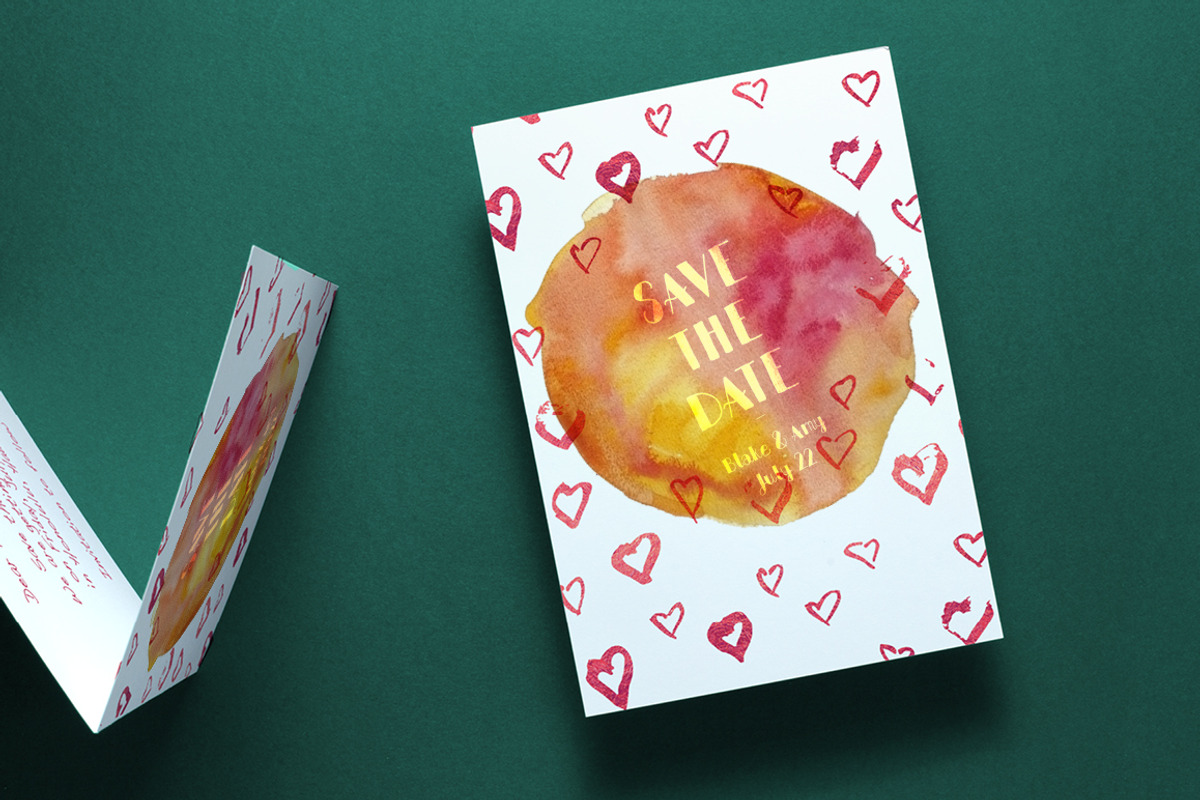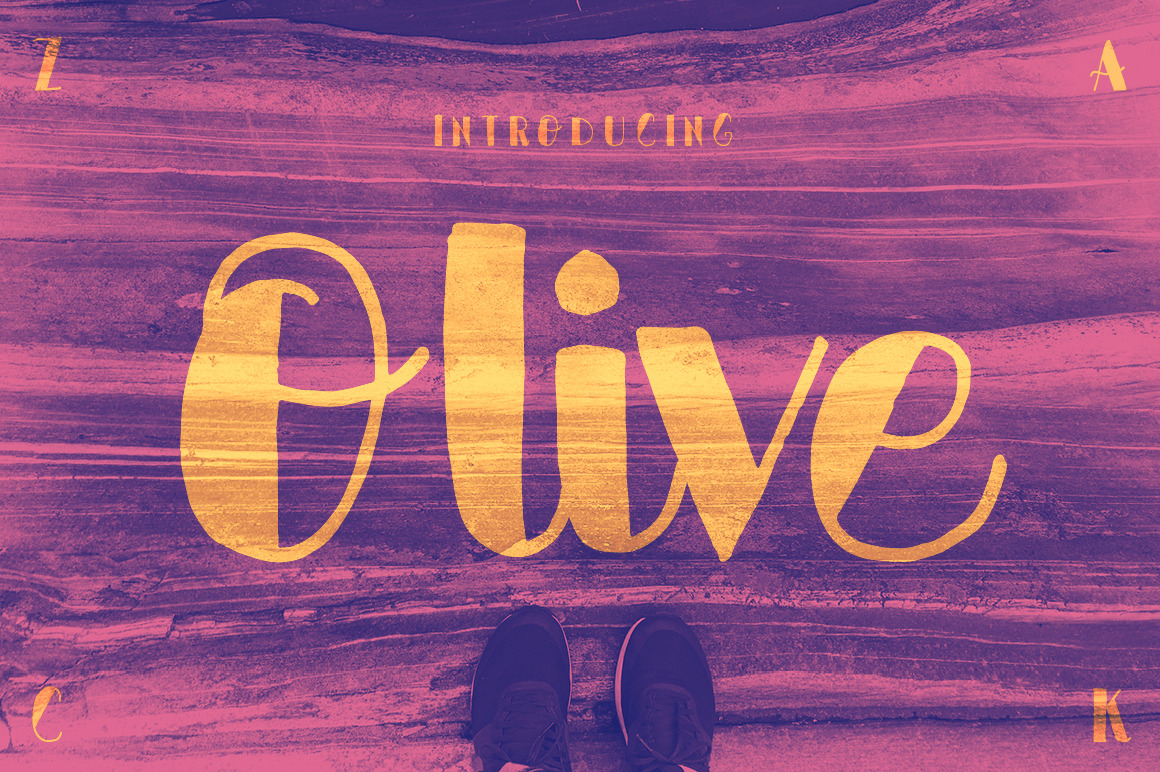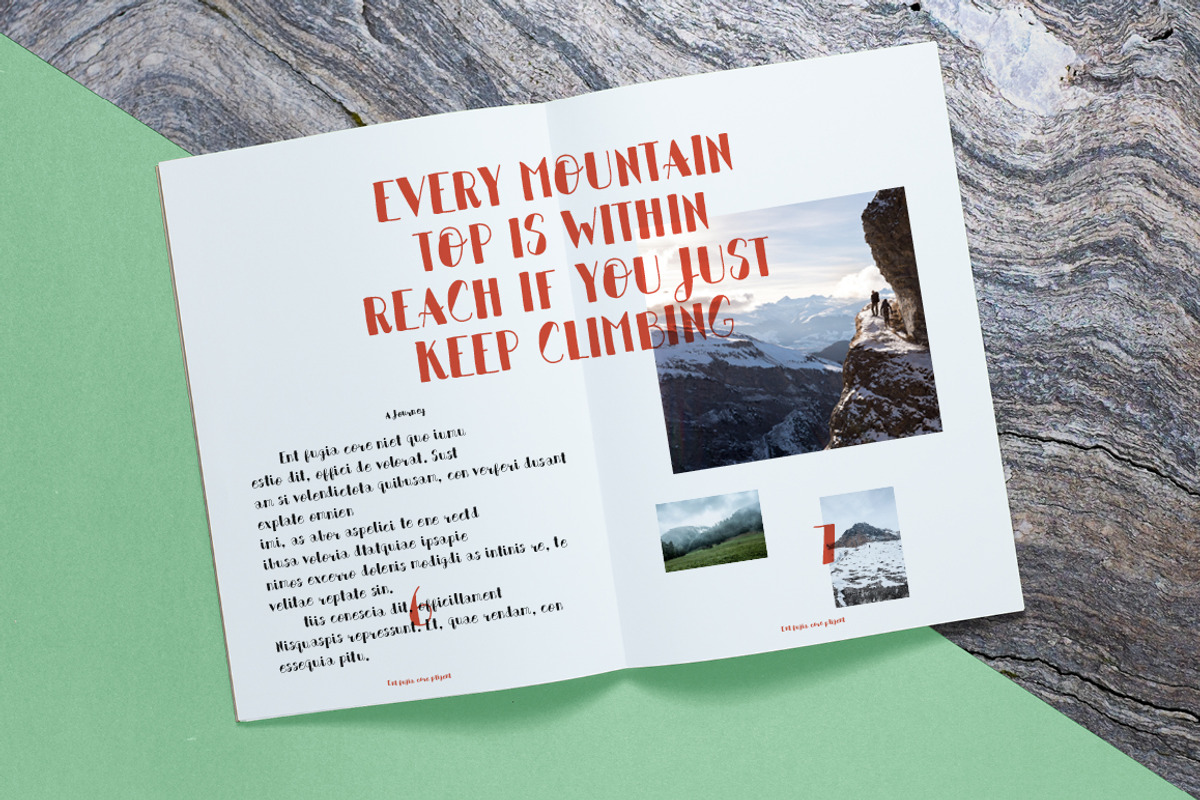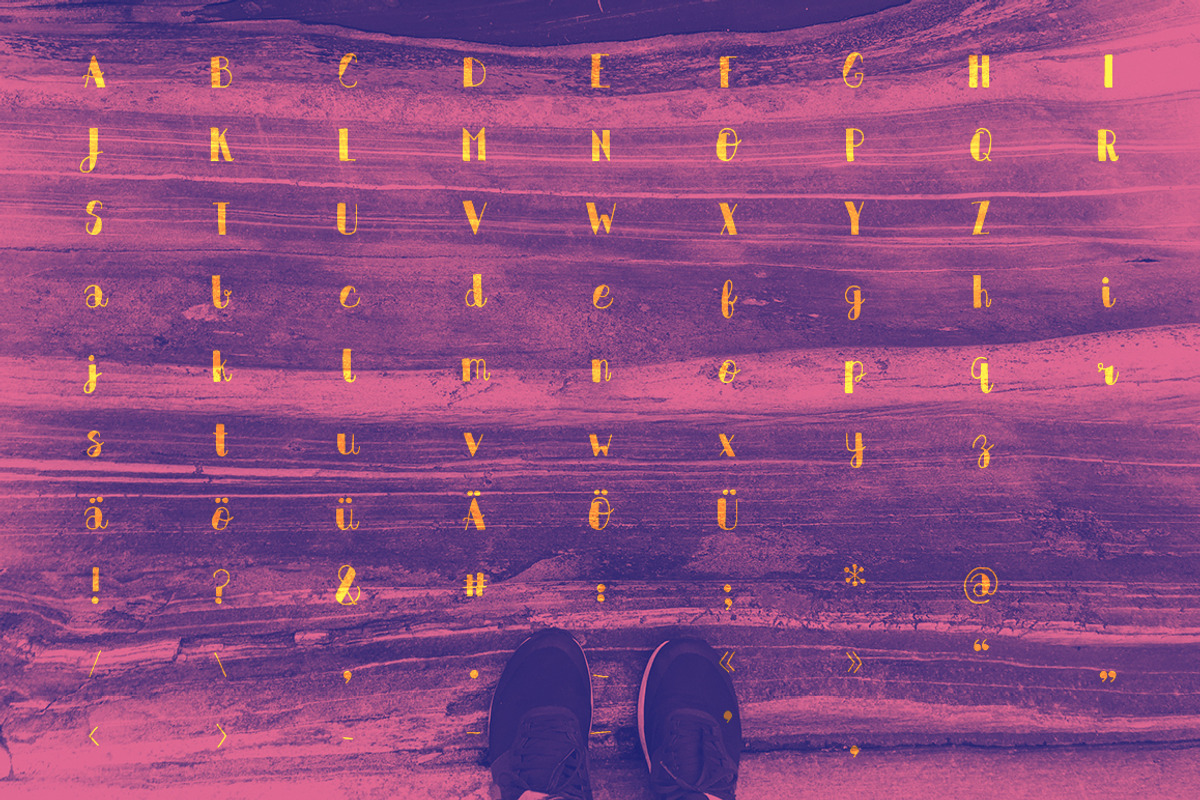
Olive – Handwritten Font
Introducing: Olive is a handwritten font that looks great in every context. Just check out the product pictures above.
- Special Characters